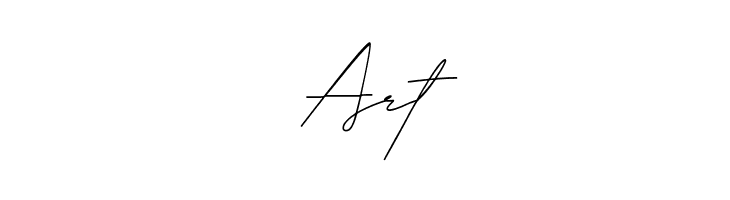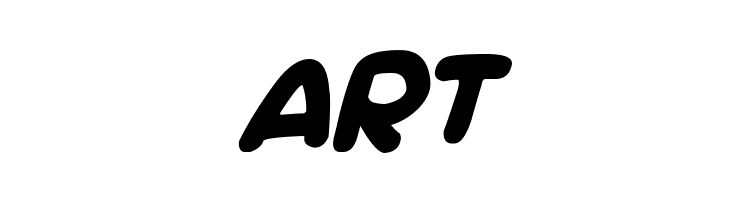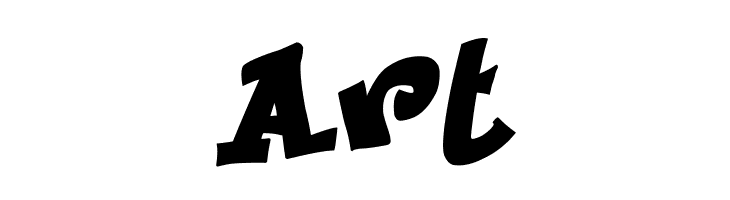
• Jumping
( Darrell Flood )
A playful, bold font with rounded, bubbly characters.
• Jumping Italic
( Darrell Flood )
A bold, italic font with rounded edges and a playful, dynamic style.
• Jumpman
A bold, playful font with a retro-modern appeal and unique star symbols.
• Junaedi
An elegant, cursive handwritten font with fluid, graceful strokes.
• Jupiter
A playful, hand-drawn font with a textured, informal style.
• Just Another Courier
( Fonts by Michele Vannucchi MKT )
A playful, bold outline font with rounded edges and uniform strokes.
• Just Jessie
• Just Like This Demo
A playful, bold font with a hand-drawn, comic-like style.
• JustMarker
A playful, hand-drawn font with a bold, marker-like style and tight character spacing.
• JustWriteDT
A dynamic, expressive handwritten font with varied stroke thickness.